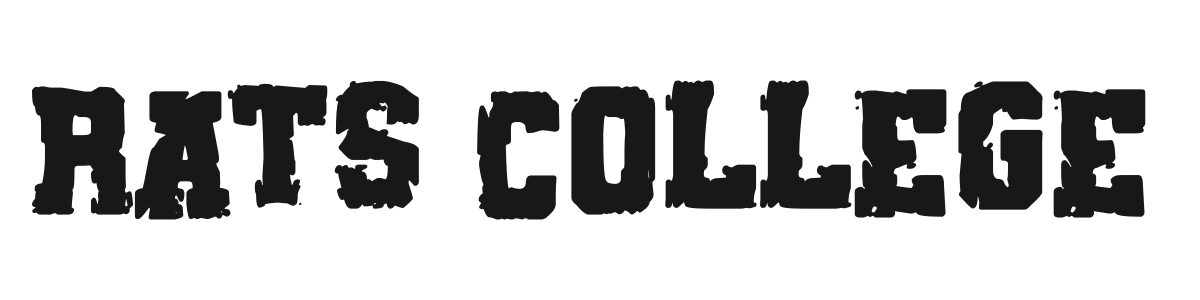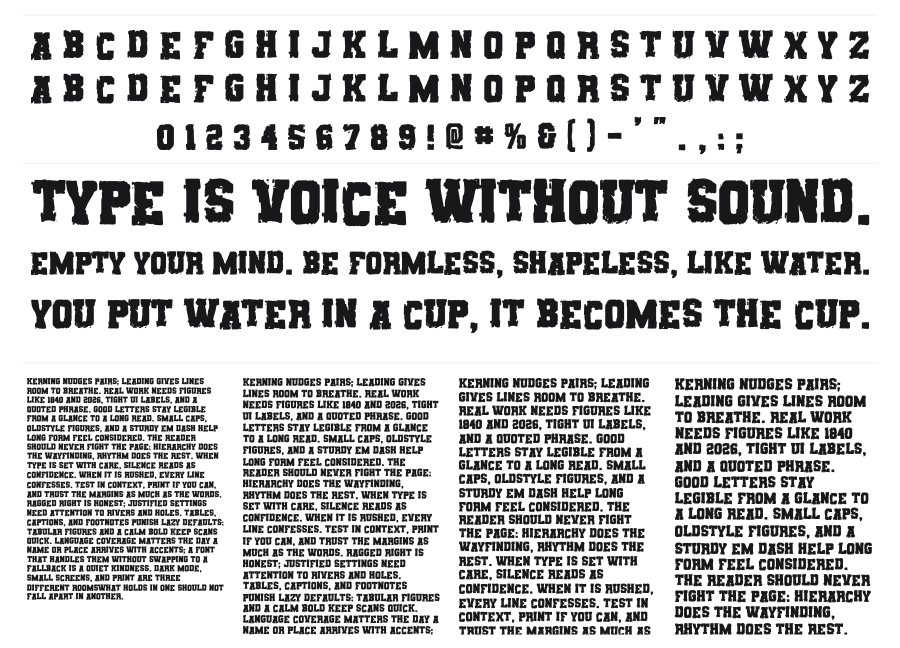
Rats College
Rats College is a heavy distressed slab-serif by Woodcutter with a battered collegiate structure that looks like it was pulled from a damaged woodblock press. The chunky, condensed forms carry deliberate erosion across every stroke, giving it a worn, underground character. It works best large, where the texture reads clearly against dark or light backgrounds.